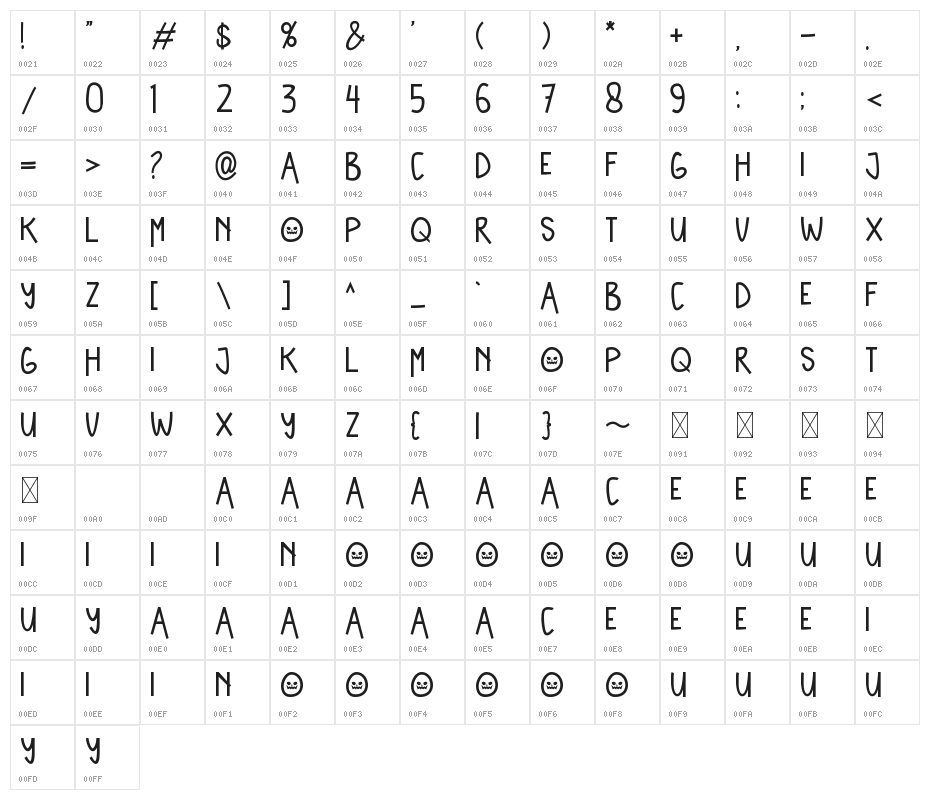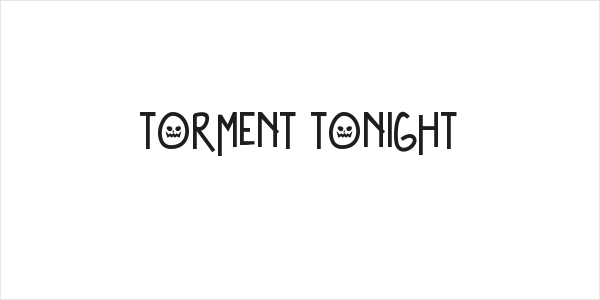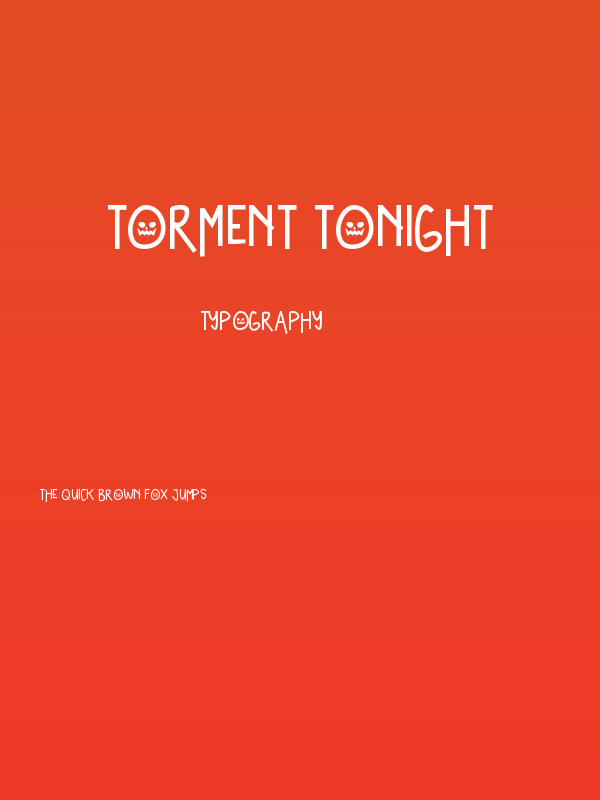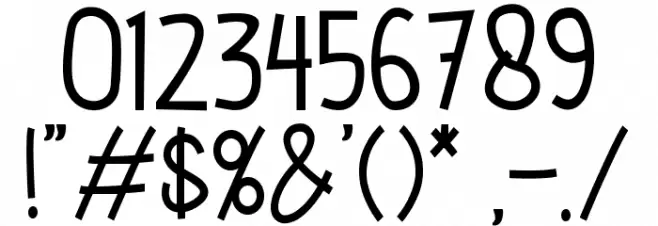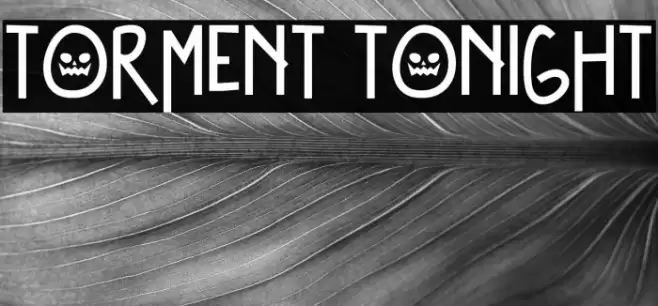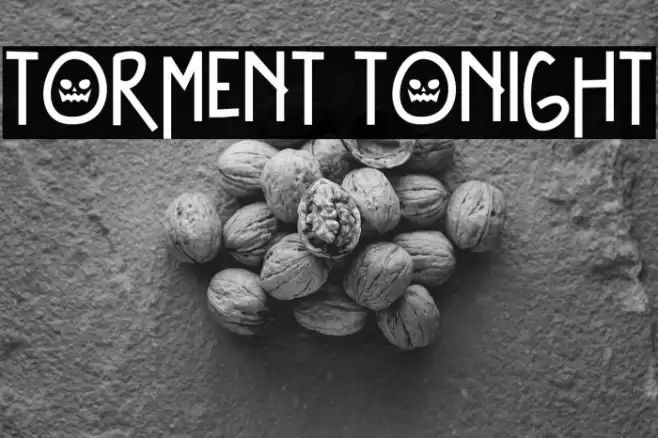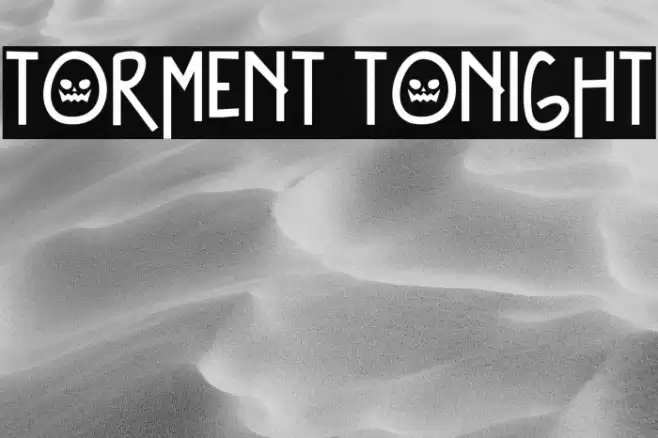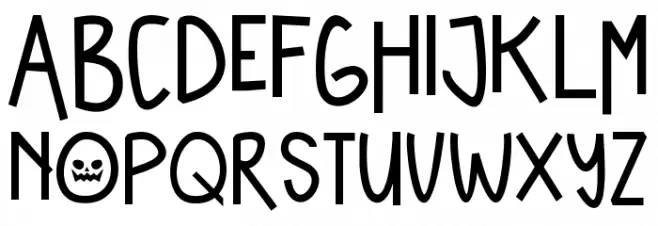
Torment Tonight Font
Torment Tonight Description
This font features a playful and quirky design with a hand-drawn aesthetic. The characters are tall and slightly irregular, giving them a whimsical and informal appearance. The uppercase and lowercase letters are consistent in style, with rounded edges and a casual feel. The numbers and special characters maintain this playful theme, making the font suitable for creative and fun projects. The inclusion of a pumpkin face within the 'O' adds a unique, festive touch, perfect for Halloween-themed designs.
| Proposed Projects | Ideal for Halloween invitations, children's book covers, playful posters, and festive greeting cards. |